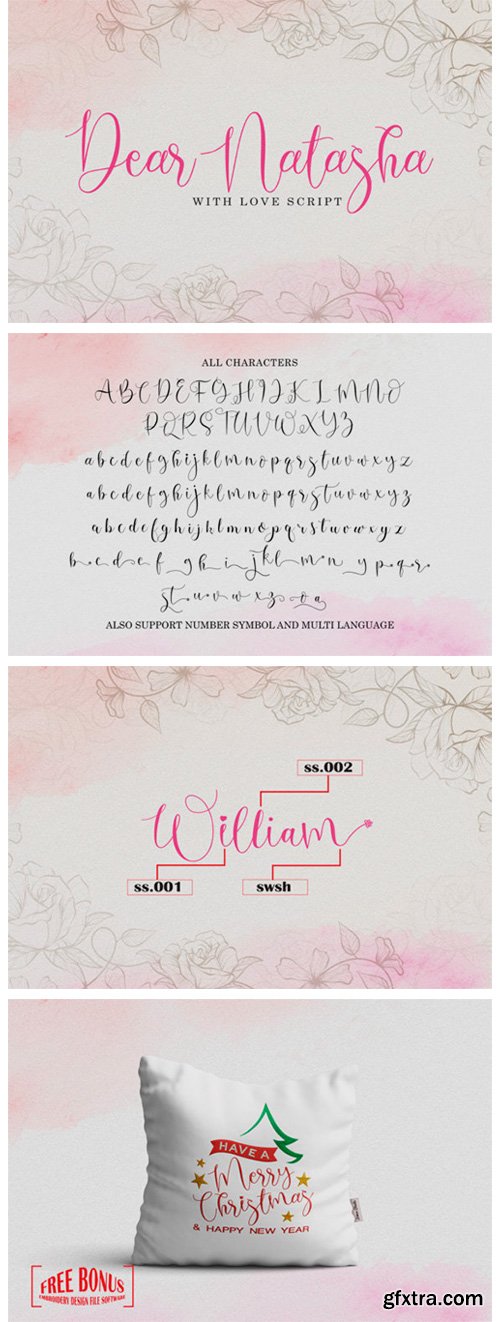
Dear Natasha Font
Dear Natasha has a beautiful and classy appearance. You can get especially creative with its added swashes and lowercase alternatives that allow you to add a natural and elegant feel to a wide range of craft projects!